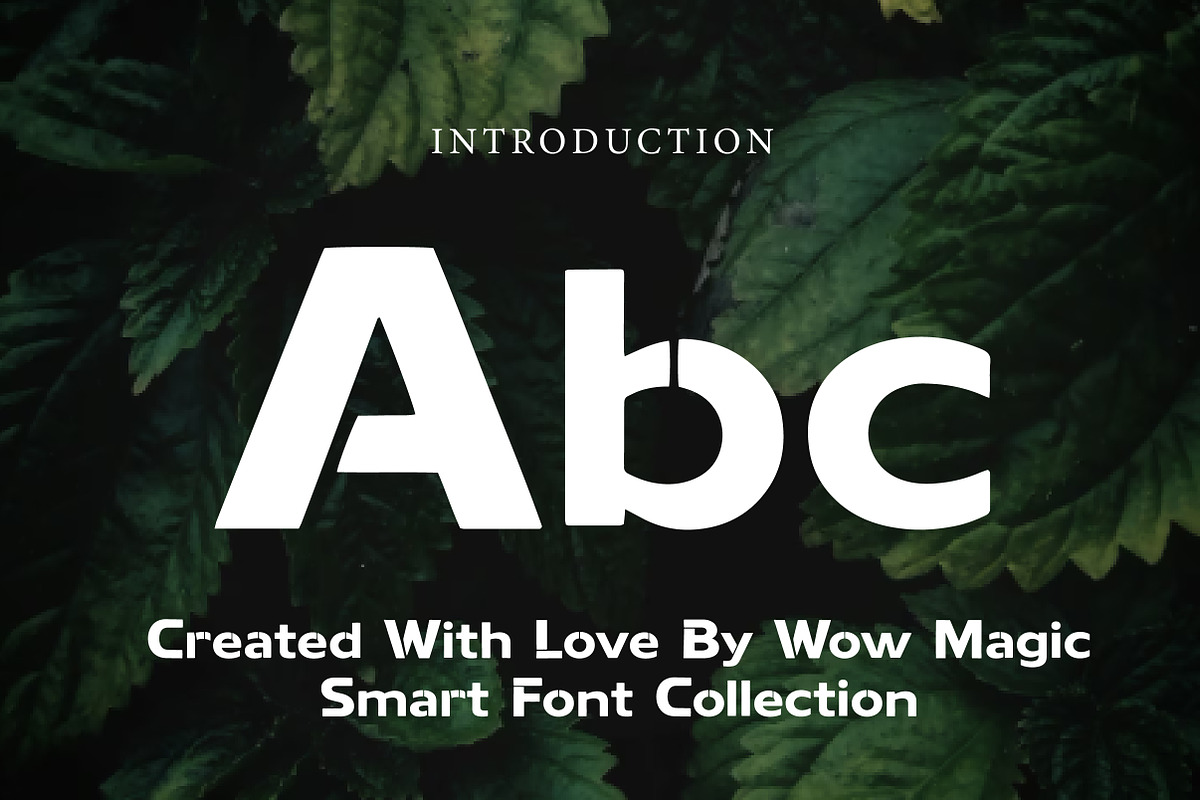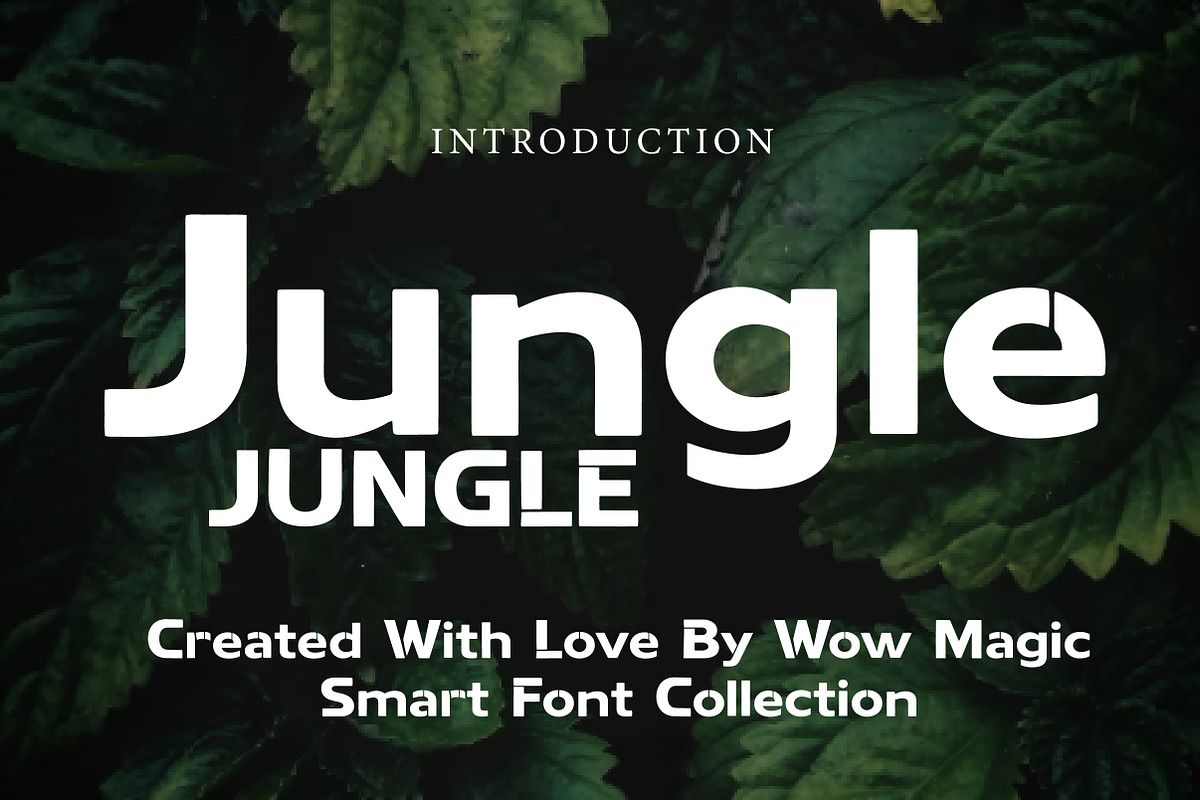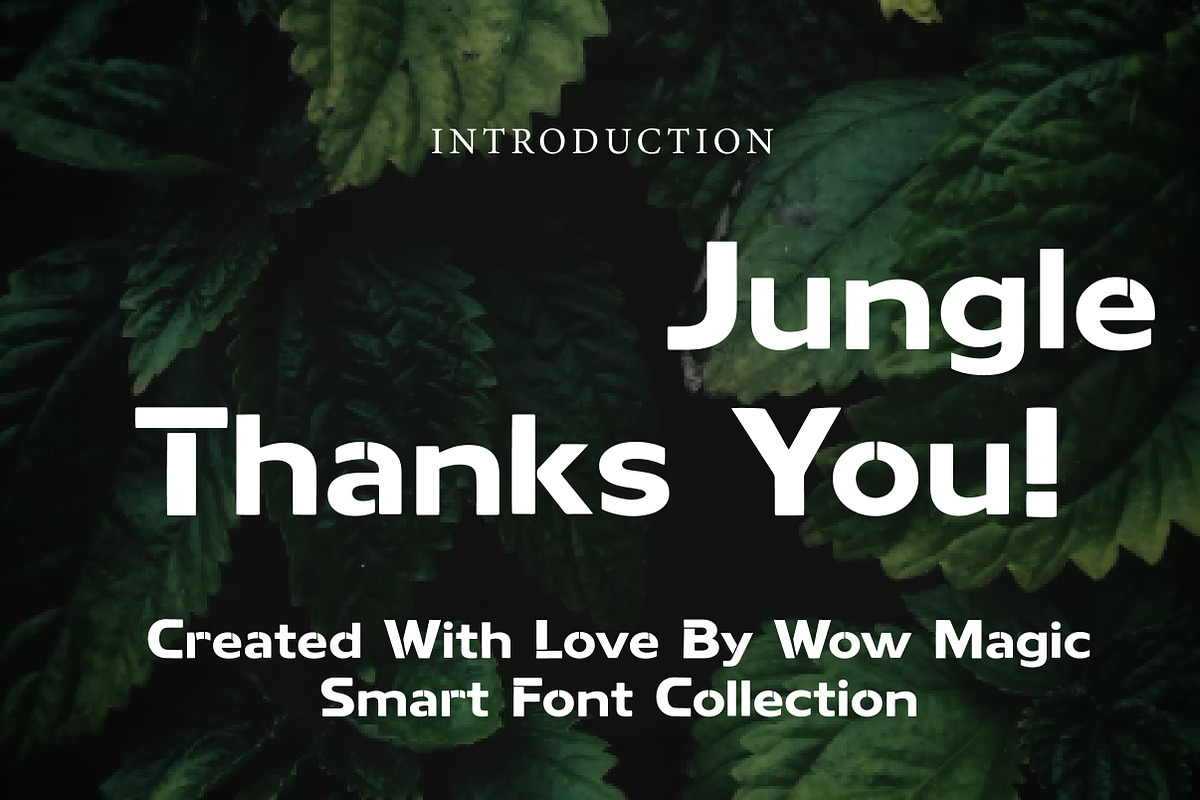
Jungle
Jungle is a bold modern display font designed with strong geometric shapes, smooth curves, and a clean rounded structure. Its thick strokes and compact letterforms create a confident visual presence that feels both contemporary and approachable.
The font has a solid and versatile character, making it perfect for branding, logos, posters, packaging, social media graphics, book covers, and bold headline designs. Its smooth construction keeps it highly readable while giving your typography a strong and stylish impact across both digital and print projects.
Jungle is ideal for designers who want a typeface that feels bold, modern, and memorable. Whether you are creating a strong brand identity or eye-catching promotional graphics, this font brings clarity, energy, and a polished visual style to your work.